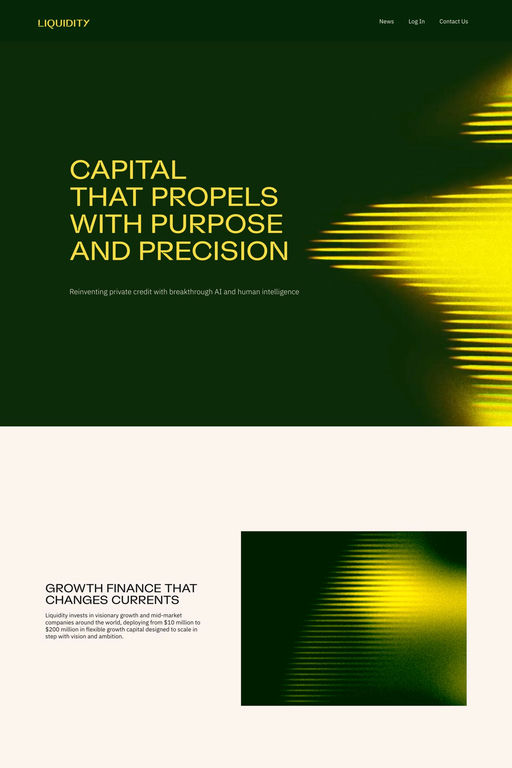
Valve is a display typeface from Pangram.
Valve is a versatile typeface that blends grotesque, geometric, industrial, monospaced, and cursive sans serif styles into a unified, cohesive ensemble.